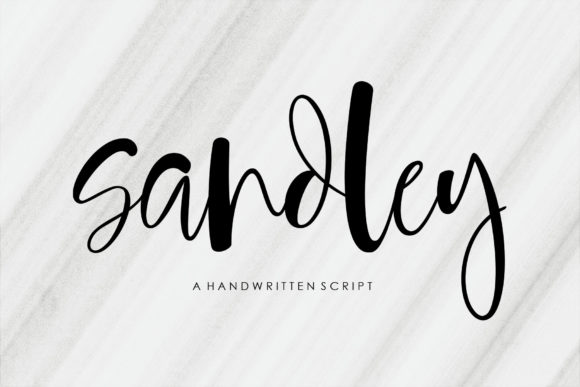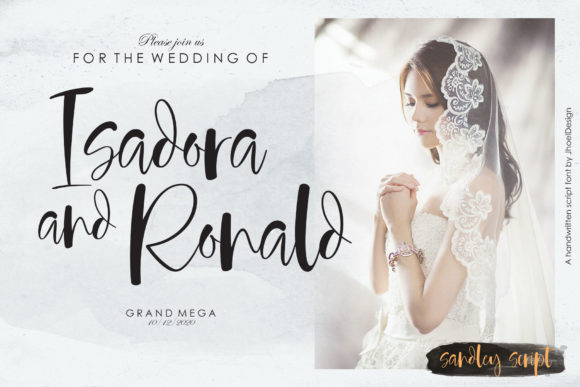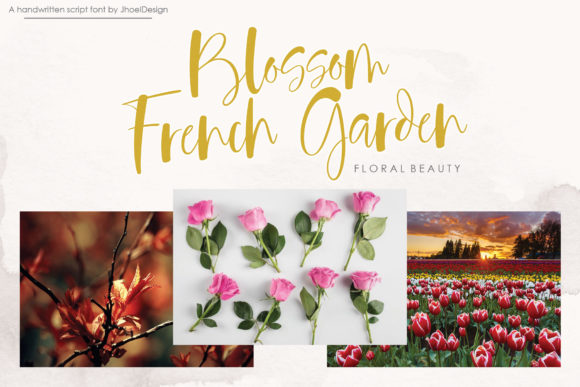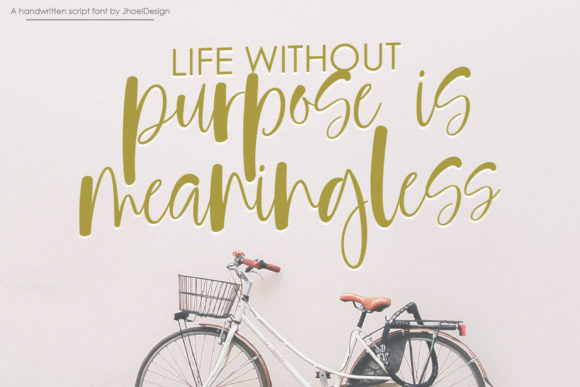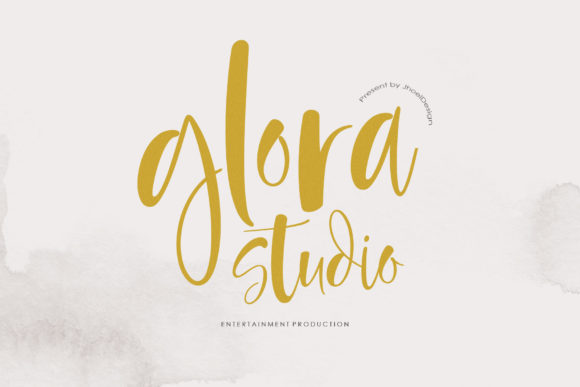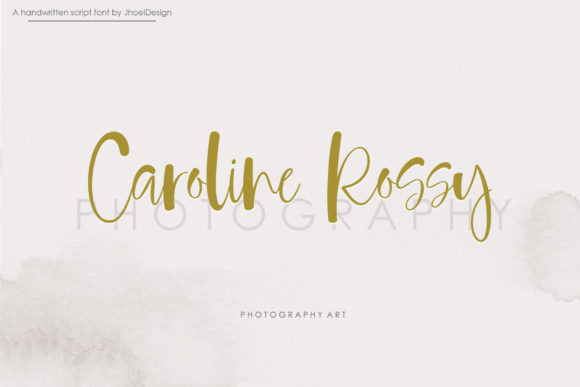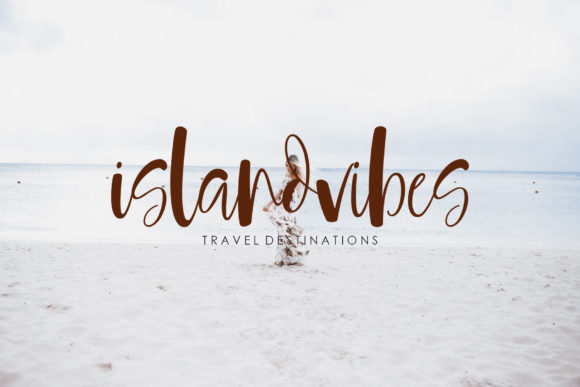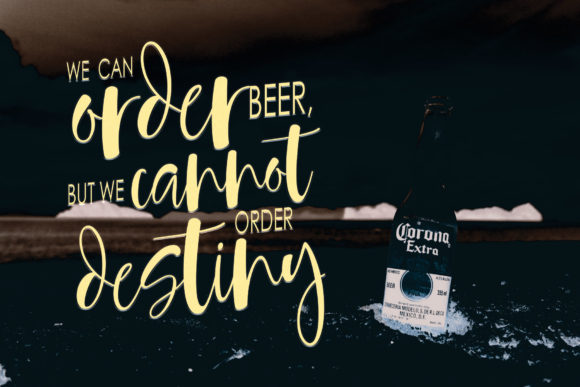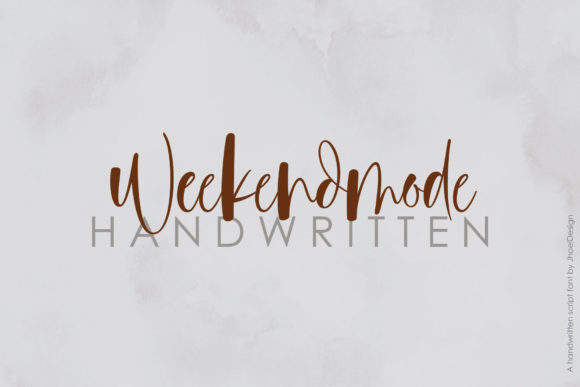
Sandley Font
About Sandley Font
Sandley is a relaxed and beautiful handwritten font. It is PUA encoded which means you can access all of the glyphs and swashes with ease! It features a varying baseline, smooth lines, gorgeous glyphs and stunning alternates. Fall in love with its incredibly versatile style and use it to create spectacular designs!